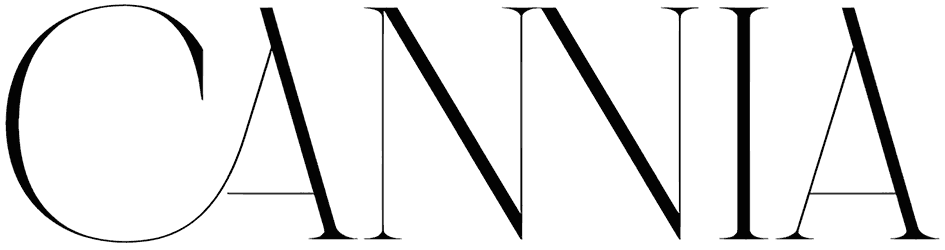
Cannia Font
Right now, drawing reality for you to experience pleasant results, just possible by adding this serif font. Although the full characters are not a daily opportunity, today, thanks to the Cannia font of our website, it’s involved.